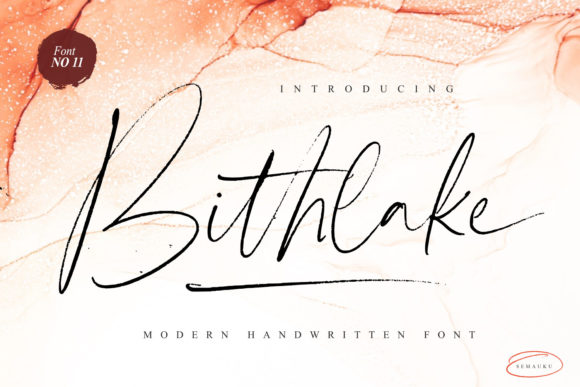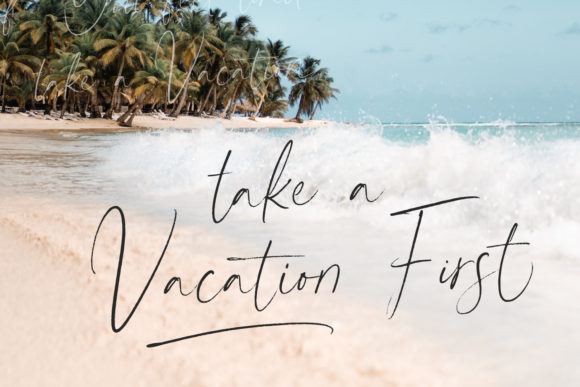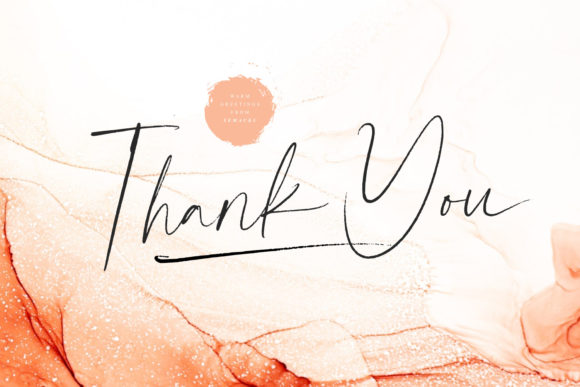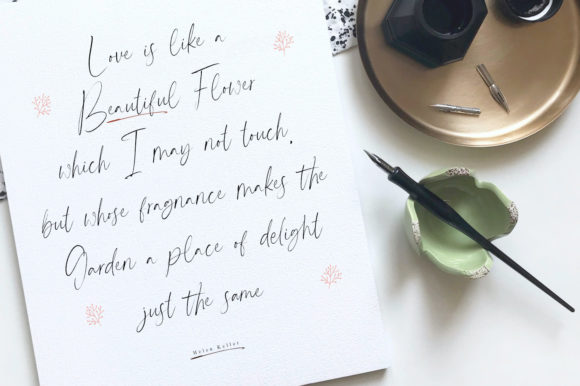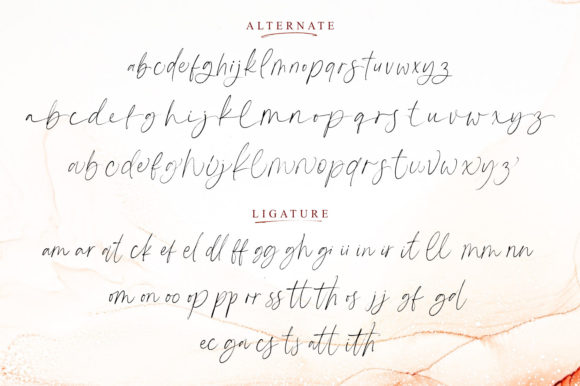
Bithlake Font
About Bithlake Font
Bithlake Font is an extremely elegant duo font (script and dingbats) that combines wonderfully and resembles a ballpoint pen. Made with care and with a sense of love, this typeface will transform your creations into classy pieces of art! This font is PUA encoded which means you can access all of the glyphs and swashes with ease!